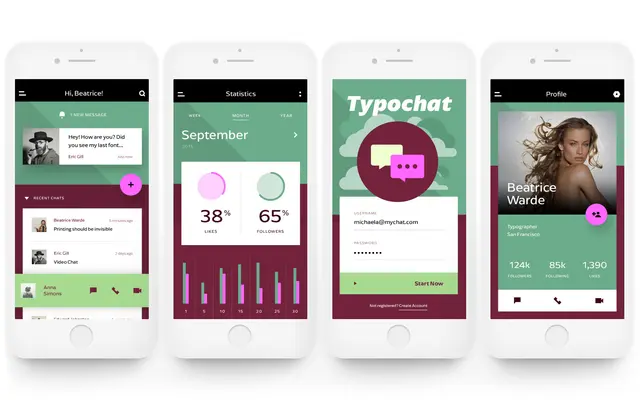
Arpona Sans
A nine-weight sans-serif family that merges geometric construction with humanist legibility, inspired by Johnston and Gill's work for London Underground.
Arpona Sans draws its lineage from Edward Johnston and Eric Gill, combining the visual clarity of geometric sans with the functional warmth of humanist letterform construction and modernist proportioning. Nine weights from Thin to Black, each with corresponding italics, give it a broad range across editorial, branding, app and web work. Each style contains 588 glyphs with four figure sets and currency symbols, covering western, eastern and central European Latin languages.
Arpona Sans blends geometric sans aesthetics with humanist construction principles, drawing on the Johnston and Gill tradition while maintaining modernist proportions, placing it at the intersection of geometric and humanist sans-serif design.